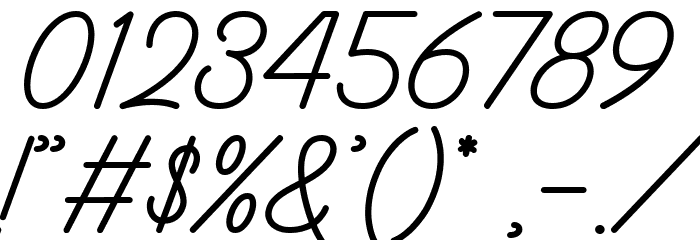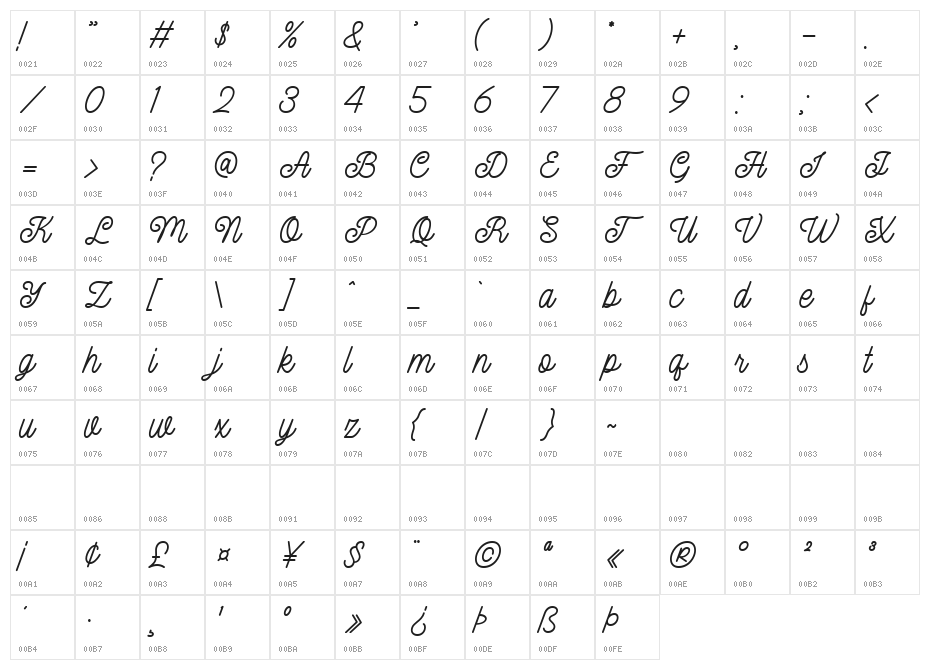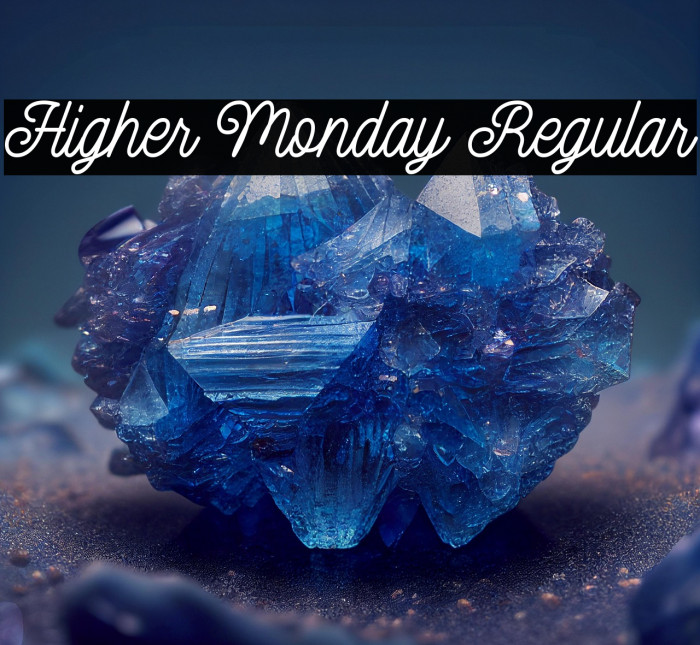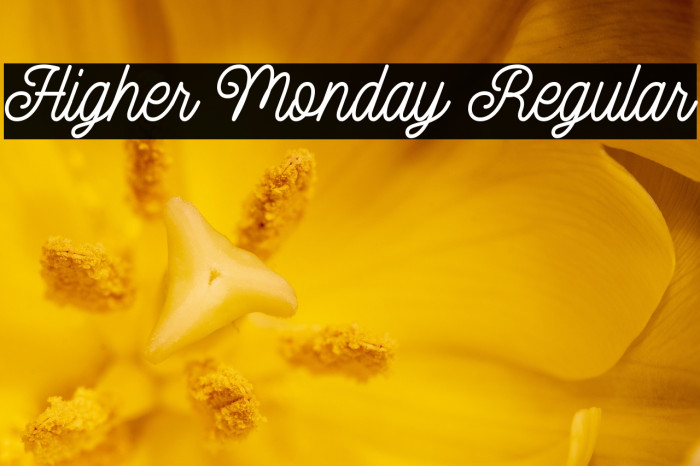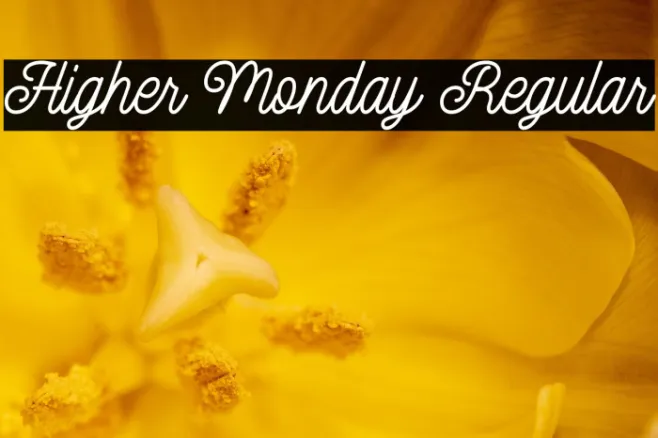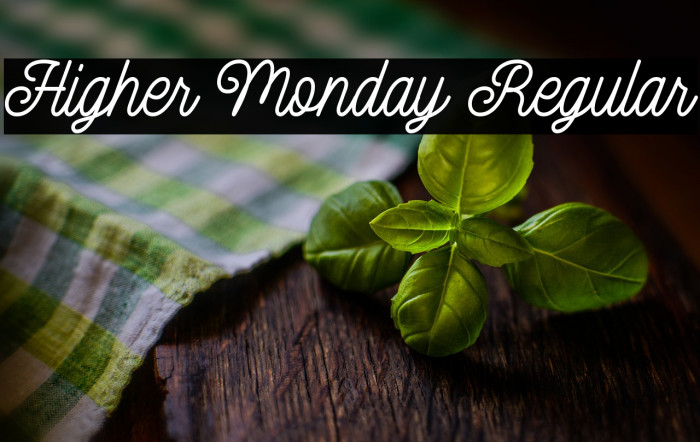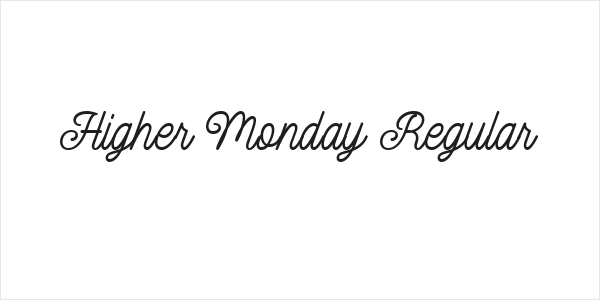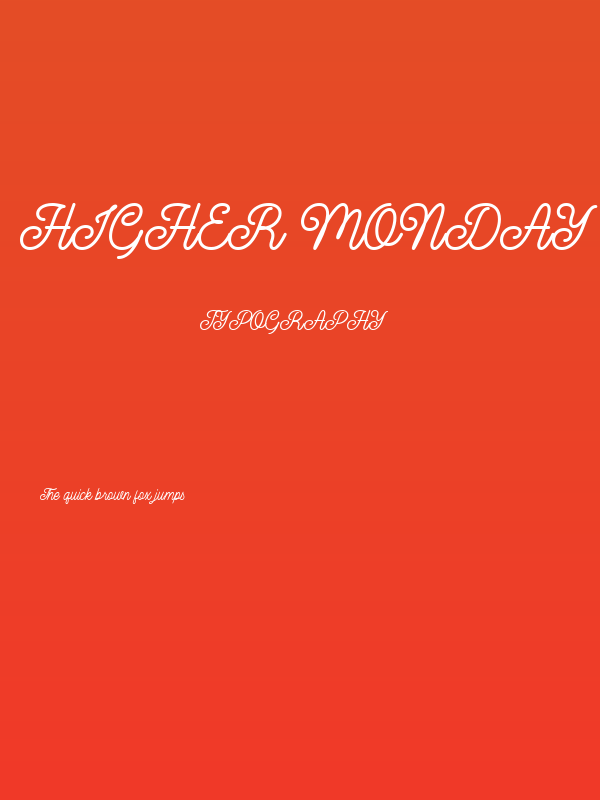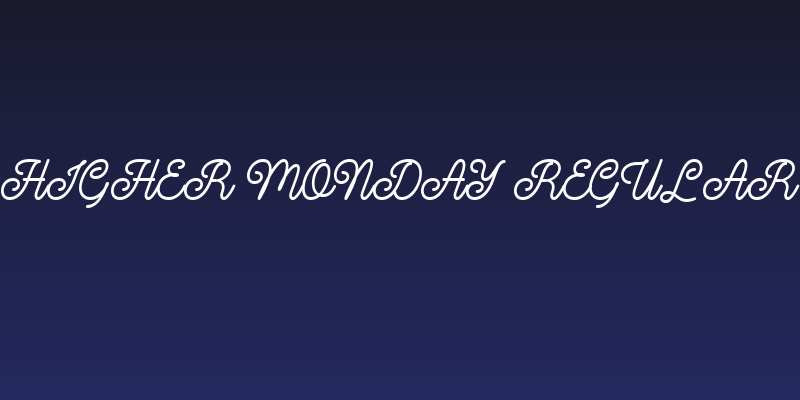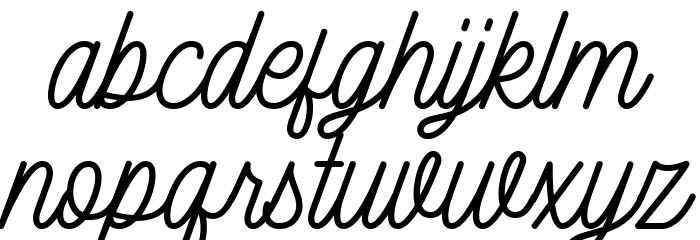
Higher Monday Regular Font
Higher Monday Regular Description
This font exhibits a flowing, cursive style with elegant loops and smooth transitions between characters. The uppercase letters are particularly ornate, featuring sweeping curves and a sense of fluidity that adds a touch of sophistication. The lowercase letters maintain this fluidity, with a more subtle approach that ensures readability. Numbers and special characters are designed to match the overall aesthetic, with consistent stroke widths and graceful curves. The font's style is reminiscent of classic calligraphy, making it suitable for projects that require a personal or artistic touch.
Overall StyleClassic
Use CaseLogos, Invitations, Decorative text
Proposed ProjectsIdeal for wedding invitations, greeting cards, branding, and elegant logos.